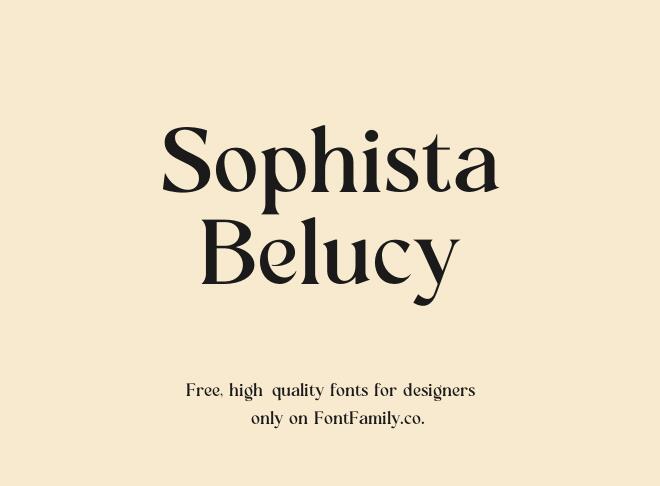
Sophista Belucy Font
Sophista Belucy Font is an elegant and modern font, perfect for designers seeking sophistication and style. This font, released by the Sophista Foundry, brings a unique blend of decorative and display elements, making it an excellent choice for logos, branding, and high impact headers. Its sleek lines and intricate details are reminiscent of traditional calligraphy, yet its contemporary edge allows it to stand out in the modern design landscape. The Sophista Belucy Font is comparable to high-end fonts like Didot and Bodoni, yet it maintains its own unique charm. Its versatility makes it a go-to font for a broad range of design projects. It's free for personal use, making it a cost-effective solution for designers looking to add a touch of elegance and modernity to their work.